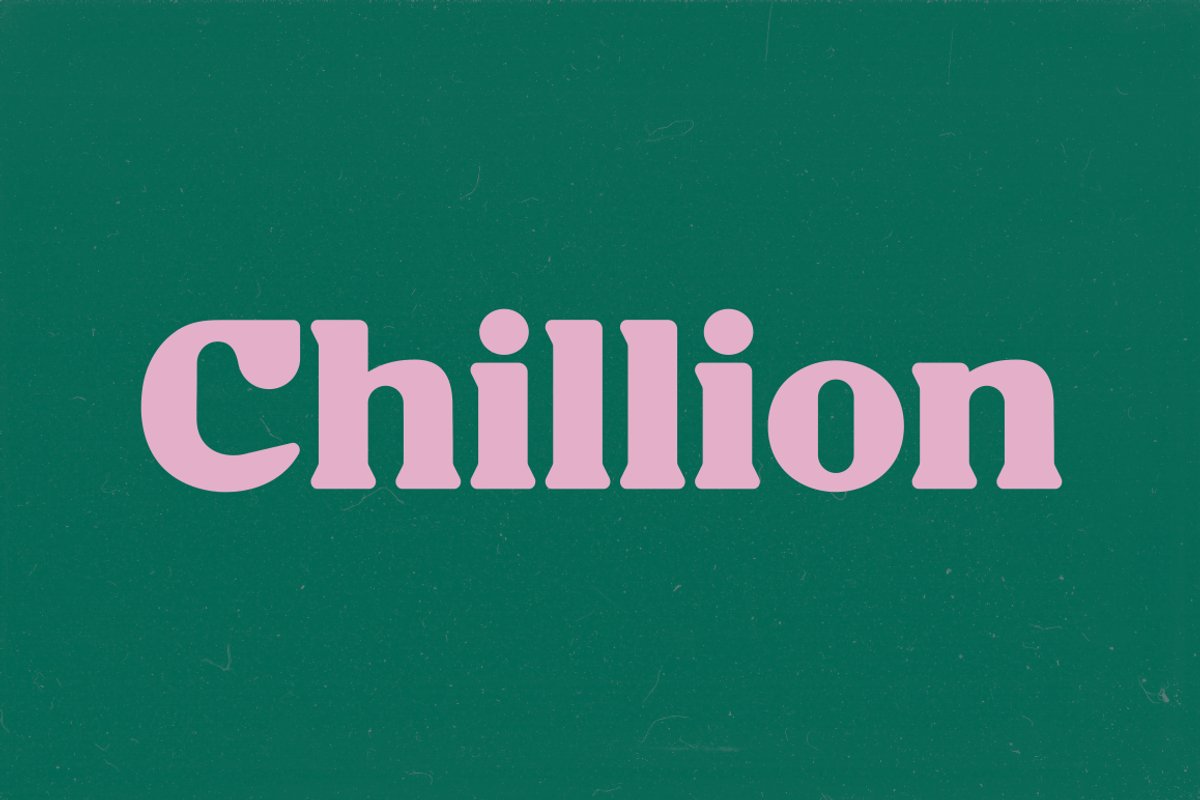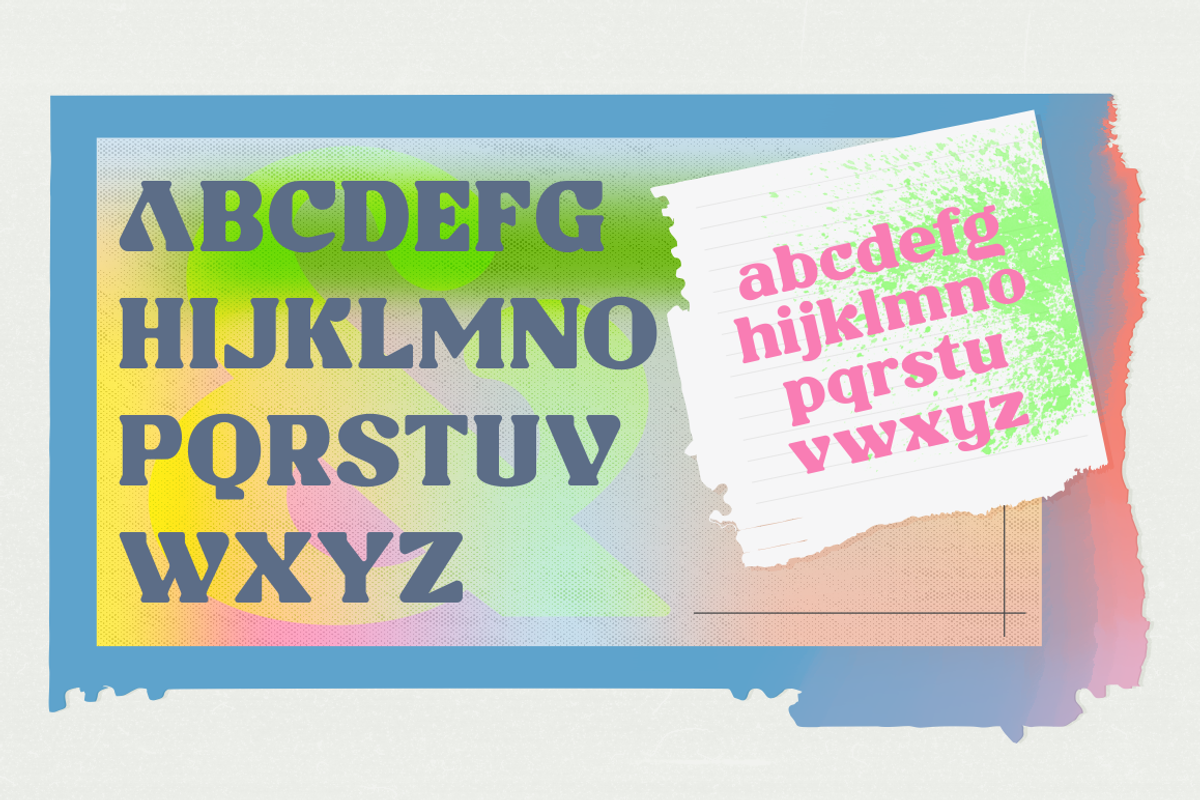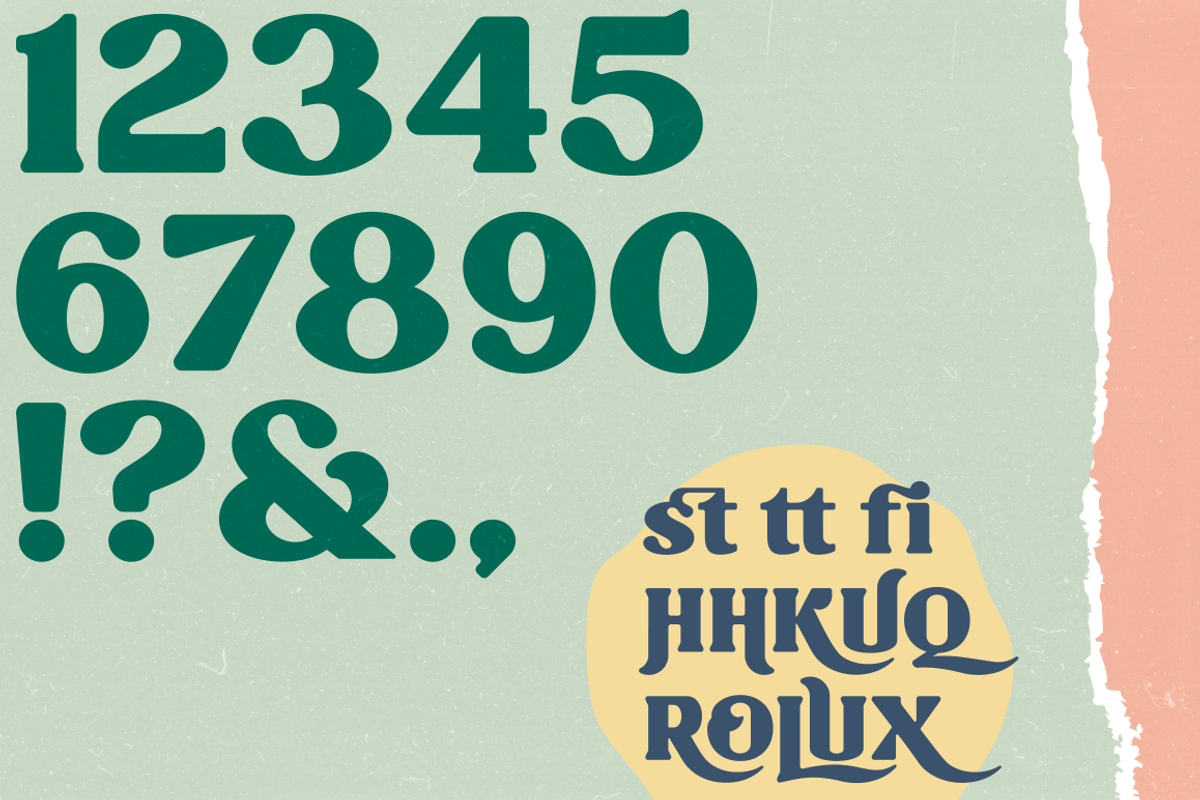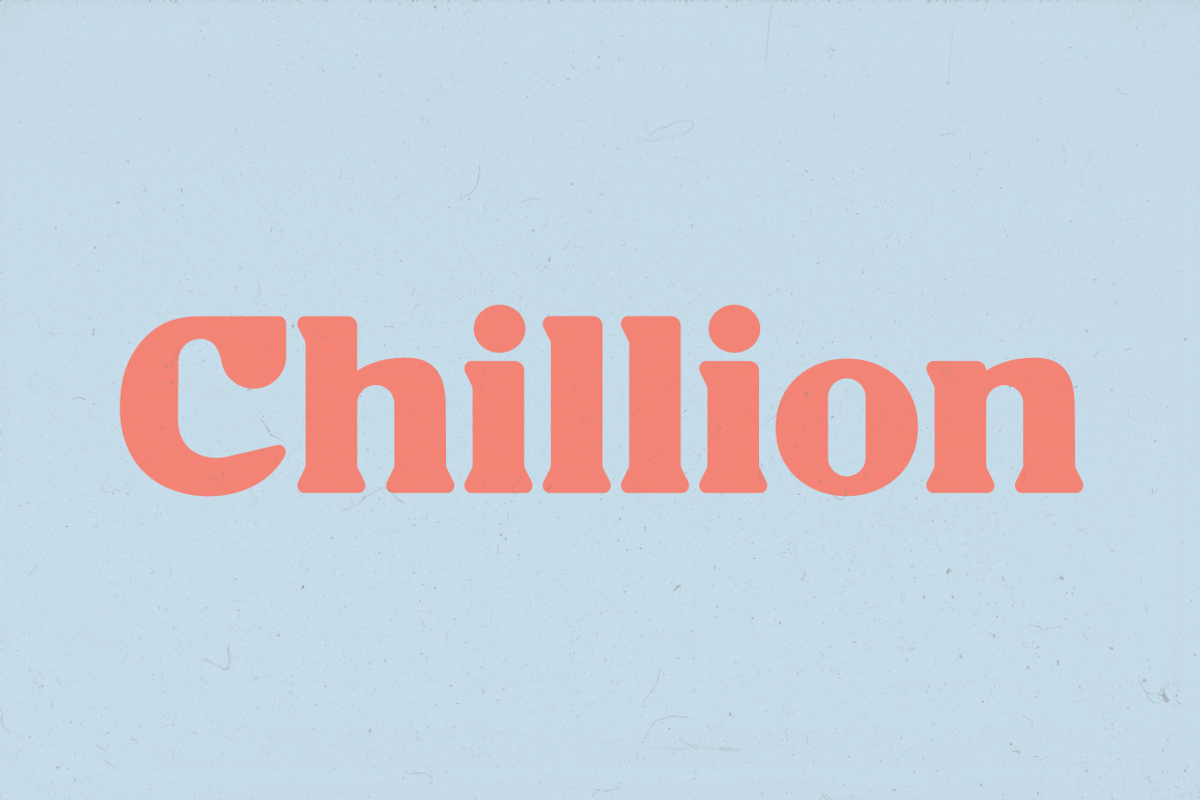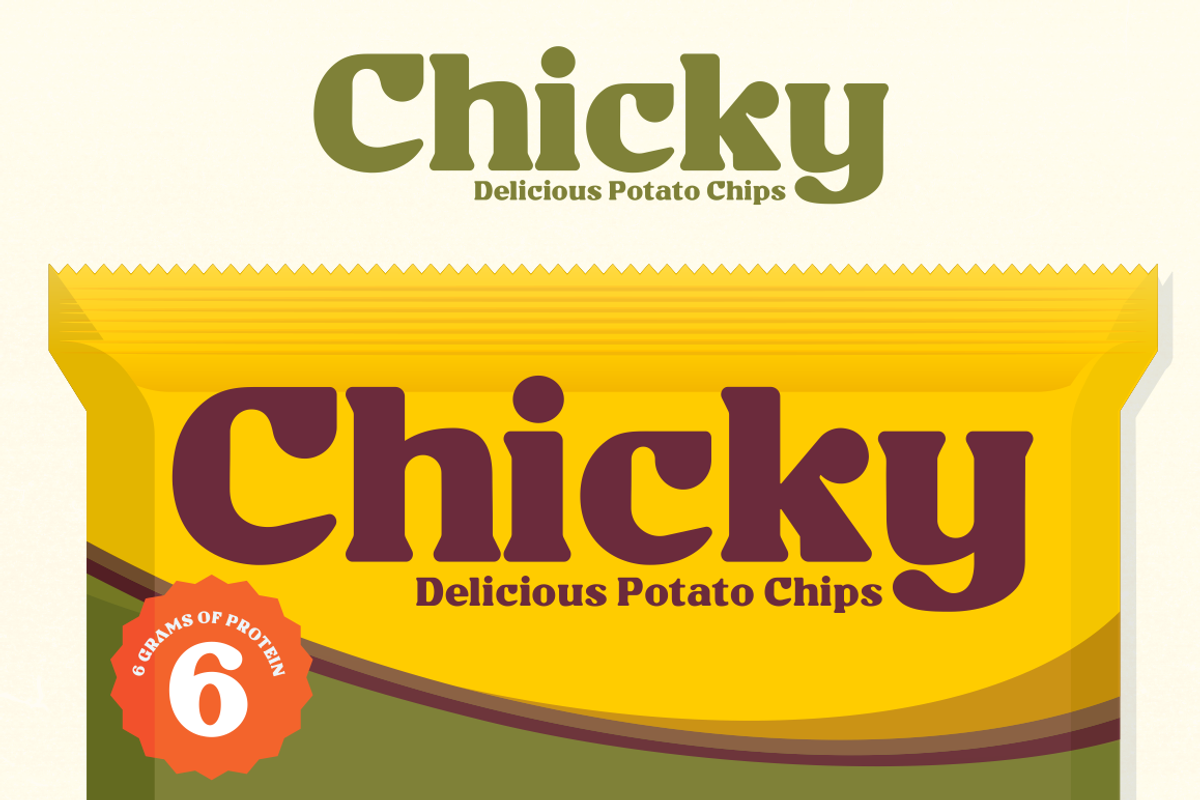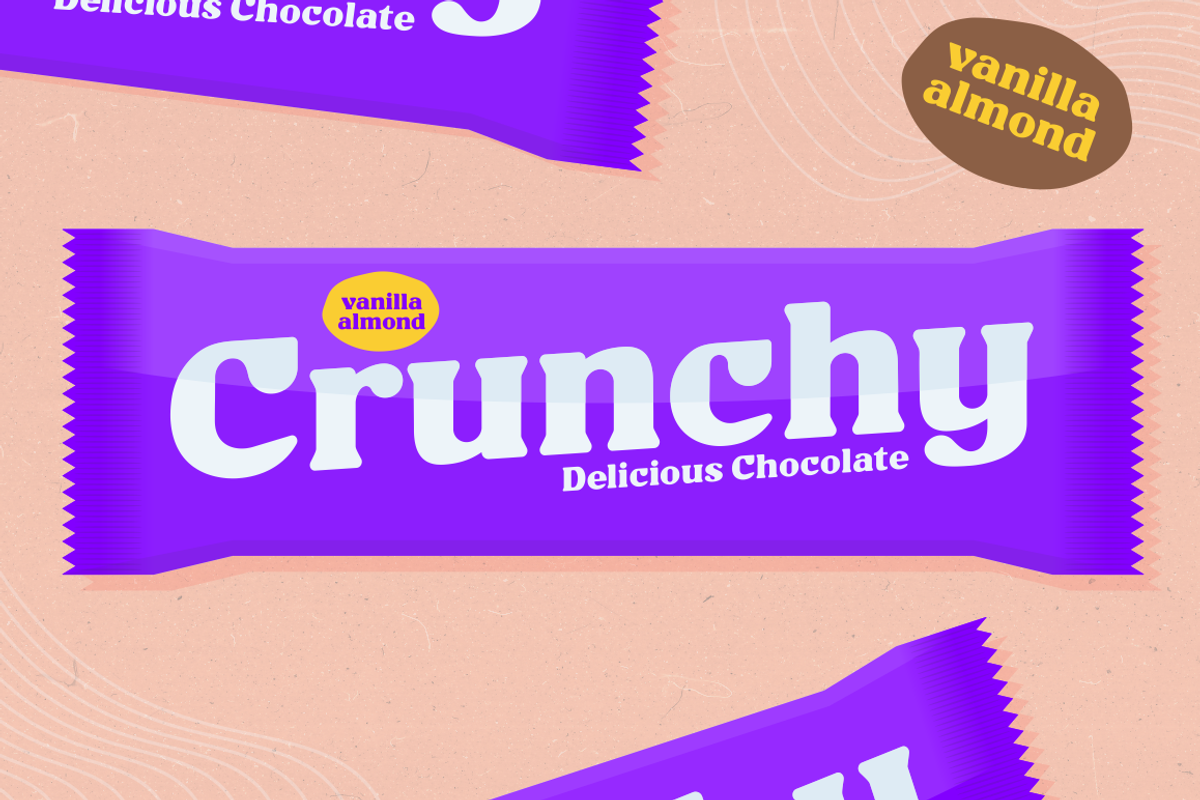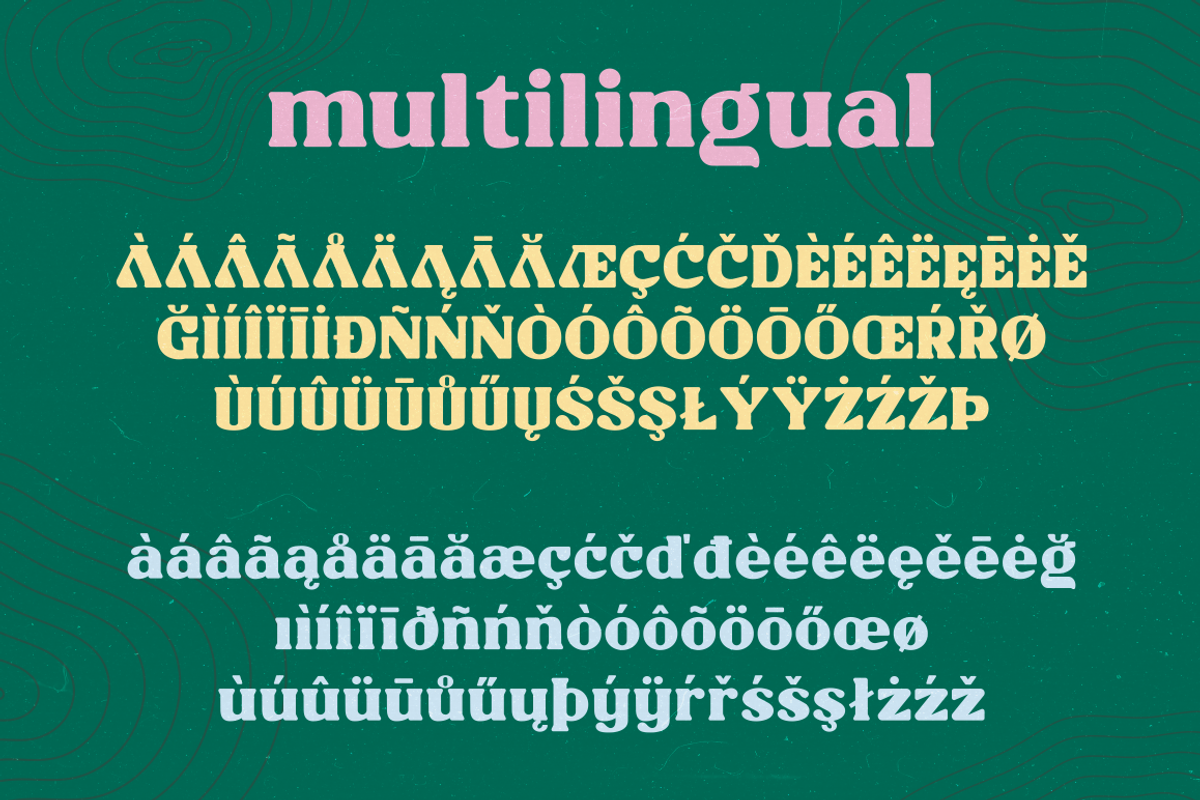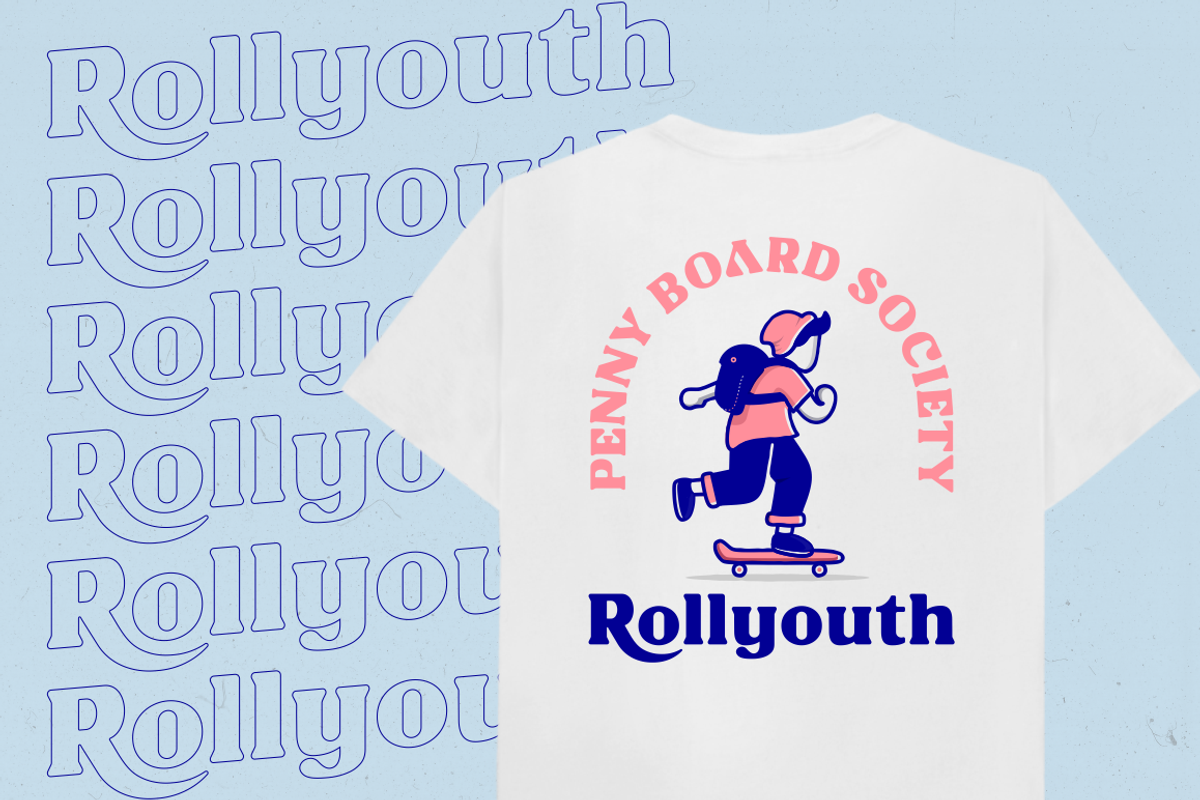
CHILLION
Chillion is multipurpose and unique display font, you can use it in modern and vintage design. This font will suitable for any project, like branding, print template, logo and etc. Chillion include uppercase and lowercase, ligature and alternate style,and also multilingual support.